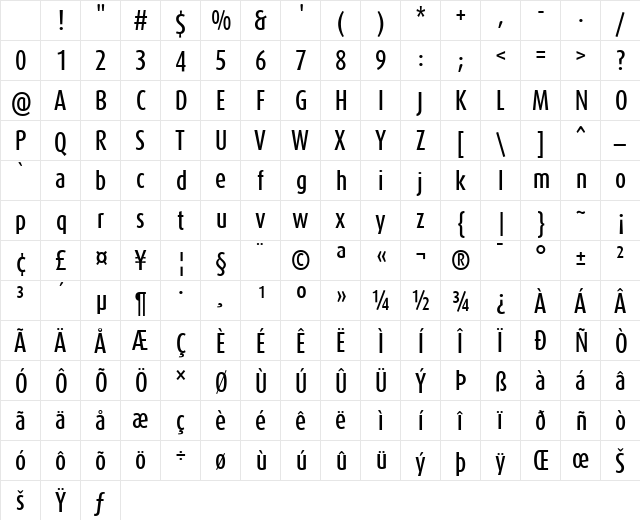
DaxCompact-Medium is a composed and adaptable typeface that performs quietly and consistently across a wide range of design contexts. Its narrow stance lets it pack a punch even in space-constrained designs.
Who designed the DaxCompact-Medium Regular font?
This font was published by Hans Reichel, published by FontShop International for the FontFont library. Check the technical specs section for copyright and designer details.